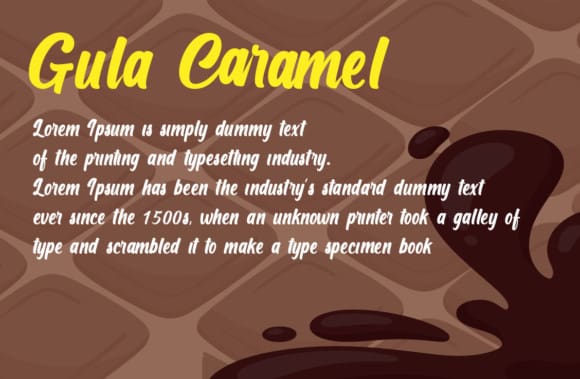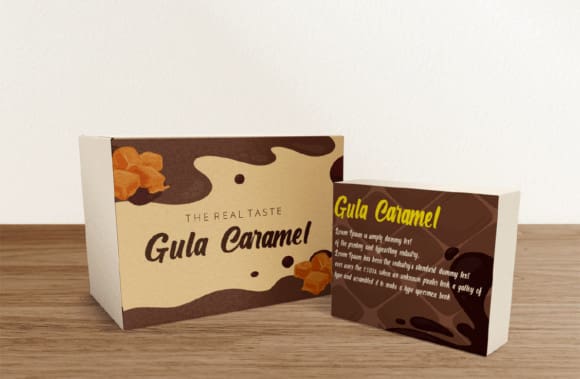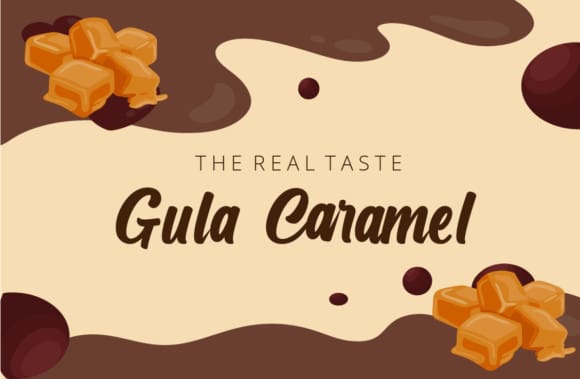
Gula Caramel Font
Gula Caramel Font is inspired by the sweet taste of Javanese sugar. Whether you’re using it for crafts, digital design, presentations, or making greeting cards, this font has the potential to become your favorite go-to font, no matter the occasion!